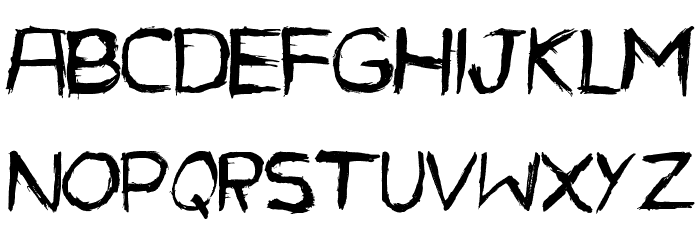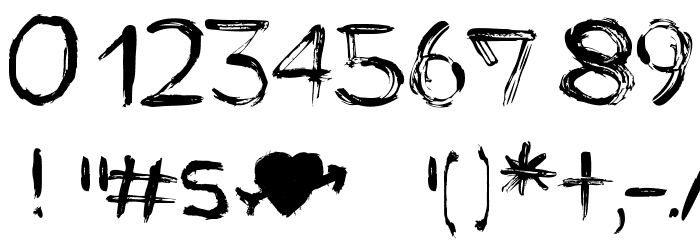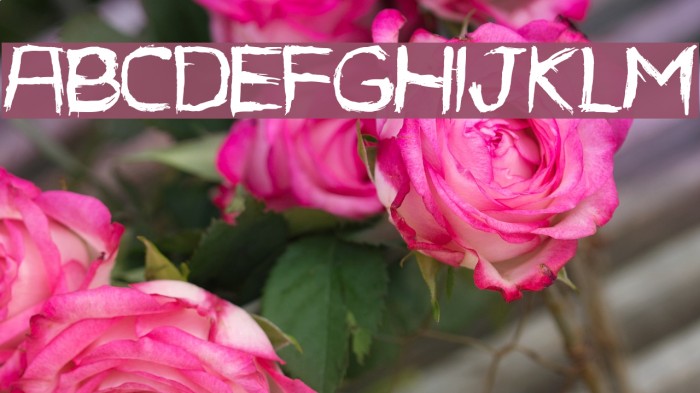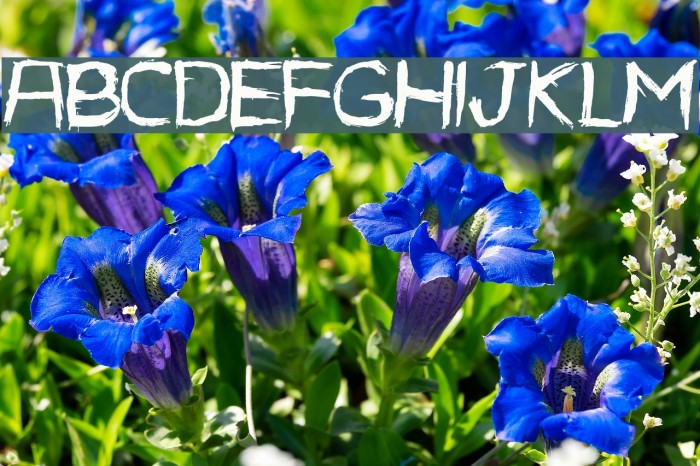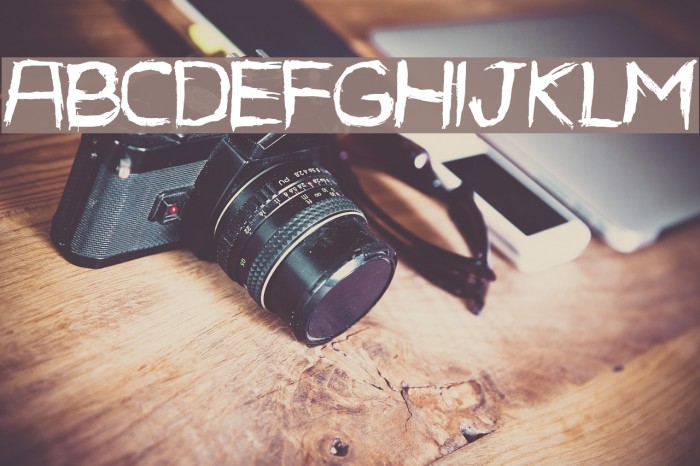
CaroleAlexandre Font
This font exudes a raw, edgy aesthetic with its brush-like strokes and irregular edges, giving it a hand-drawn, expressive feel. The uppercase and lowercase letters maintain a consistent style, characterized by their bold, jagged lines that suggest movement and energy. Numbers and special characters follow the same dynamic pattern, enhancing the font's cohesive look. The overall appearance is both artistic and slightly chaotic, making it ideal for projects that require a touch of rebelliousness or creativity. The font's unique style makes it stand out, perfect for capturing attention in various design contexts.
A bold, brush-stroke font with an edgy, hand-drawn appearance.
- Proposed Projects: Ideal for album covers, posters, graffiti art, and edgy branding projects.
- Overall Style: Modern, Artistic